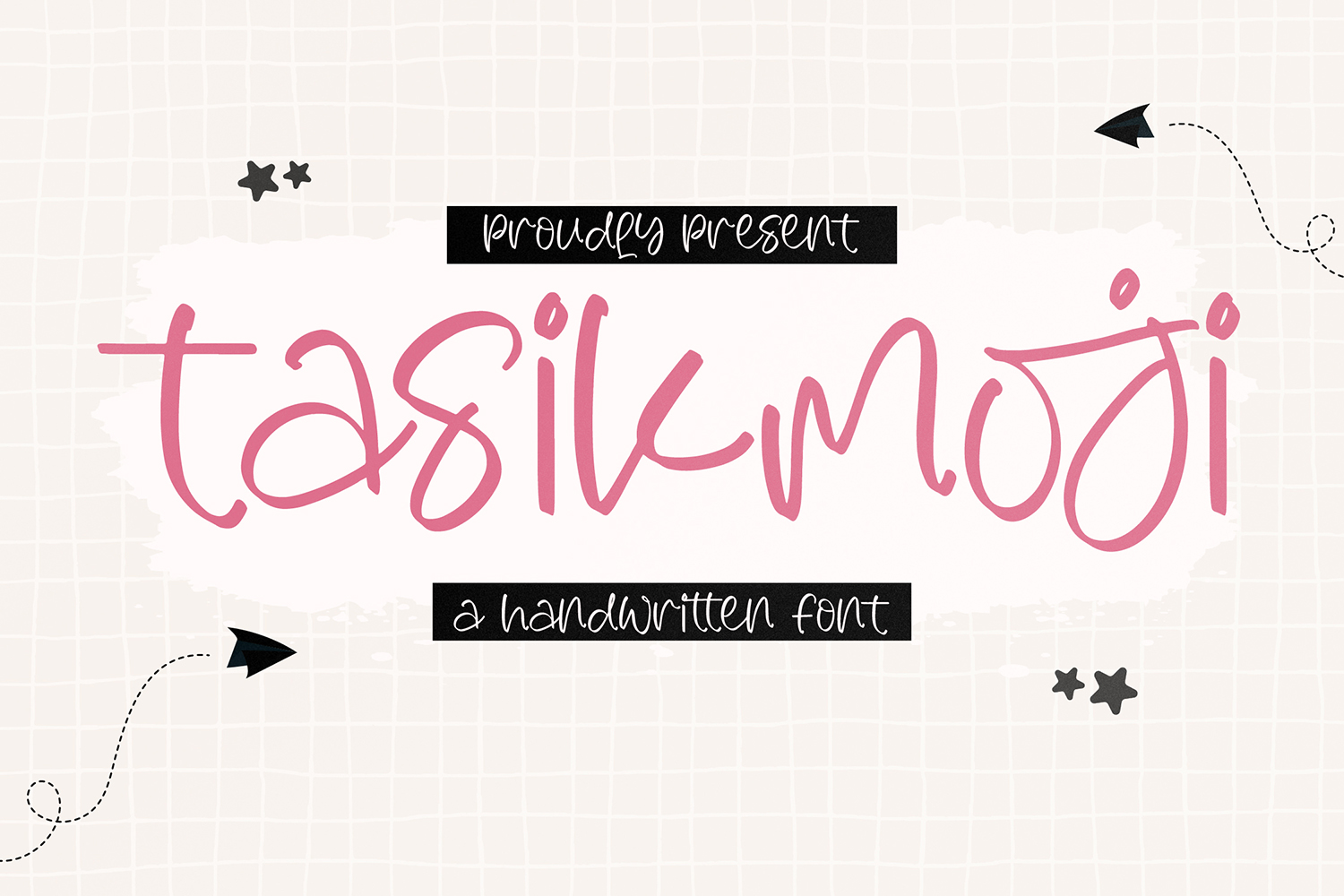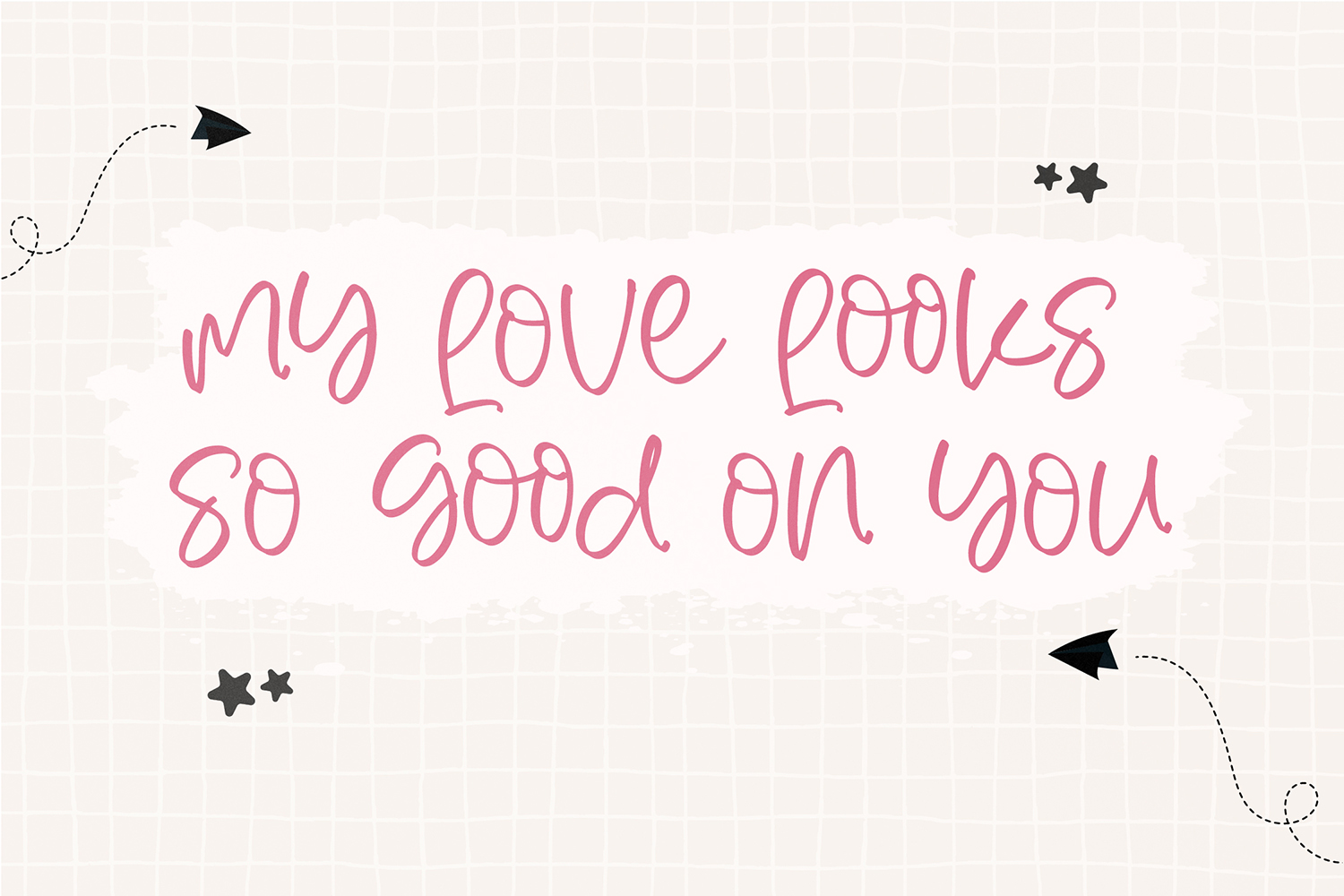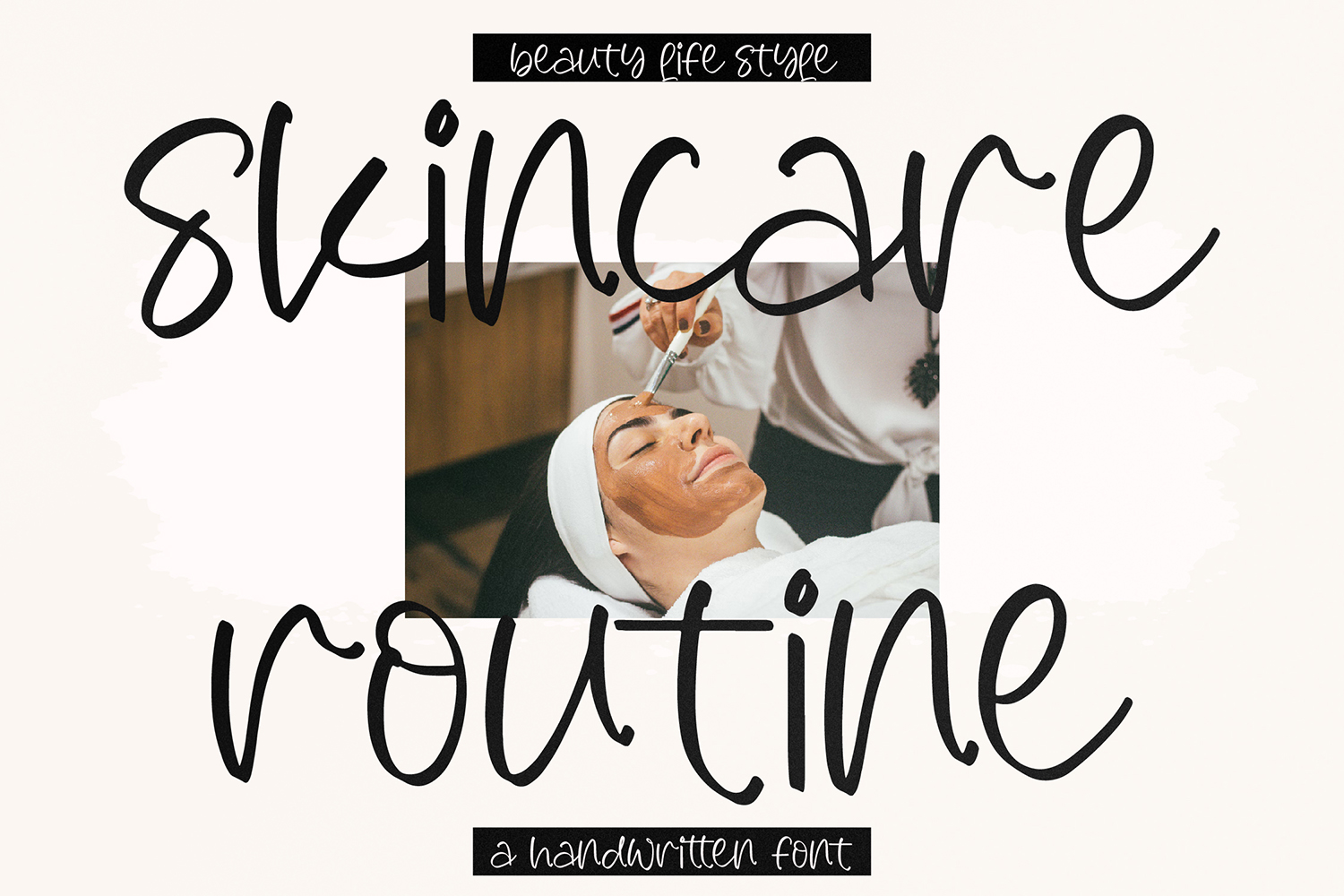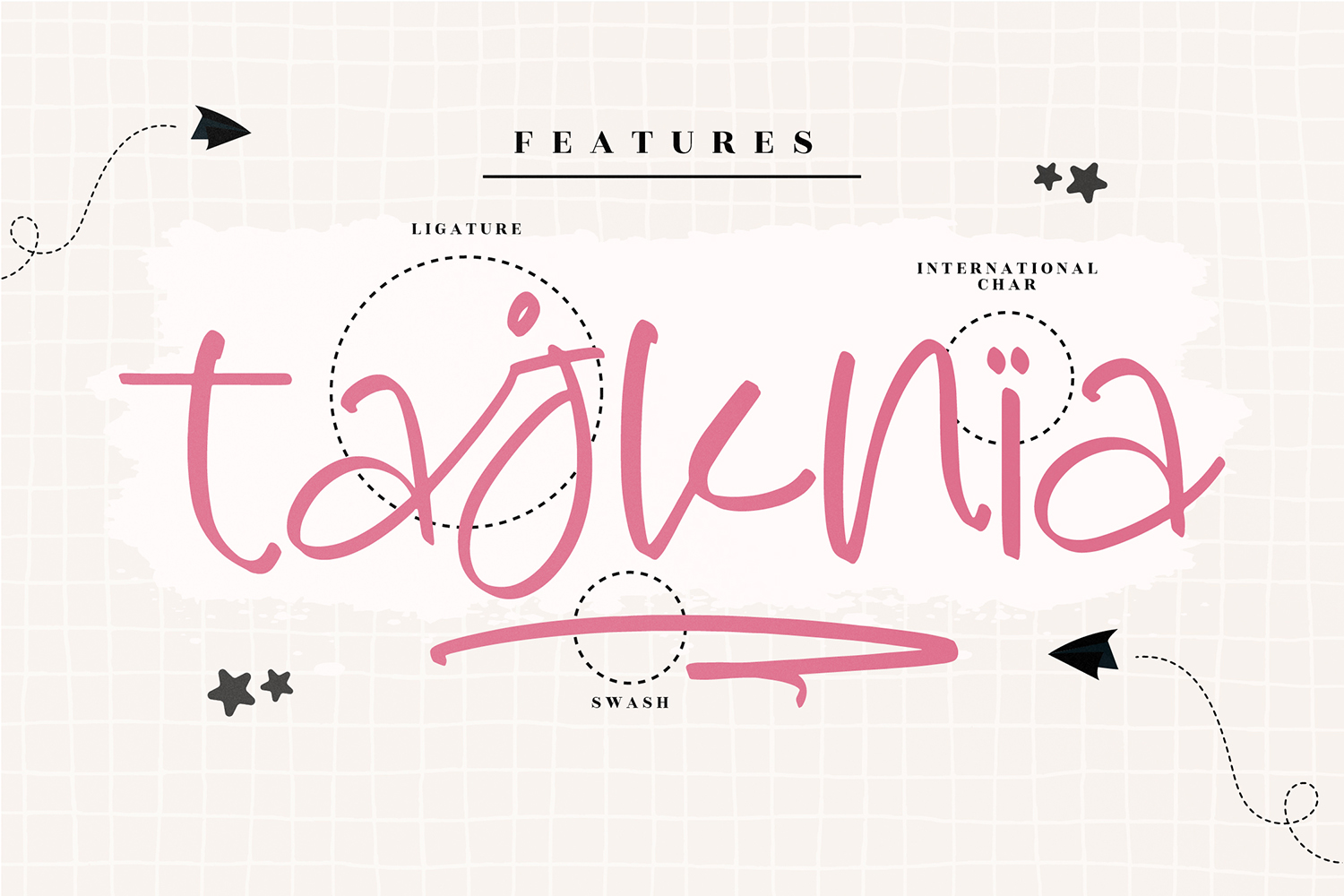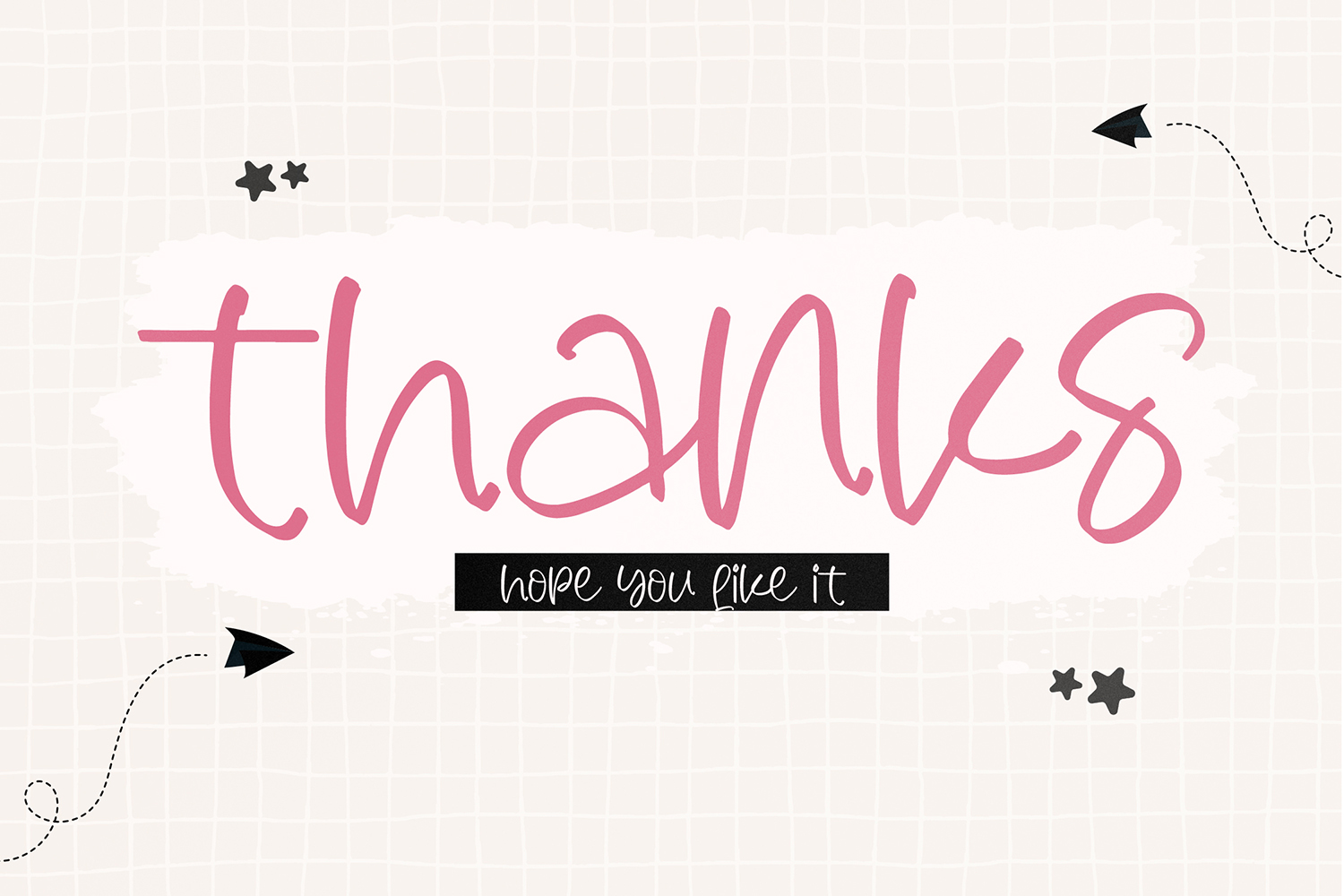
Tasikmoji Free Font
Tasikmoji Free Font is a fun and friendly handwritten font. Use it to turn any design idea into a true standout. Get inspired by its unique charm and create lovely designs. This free typeface was designed by a talented Glorytype Studio. If you like it don’t forget to check out the full version.